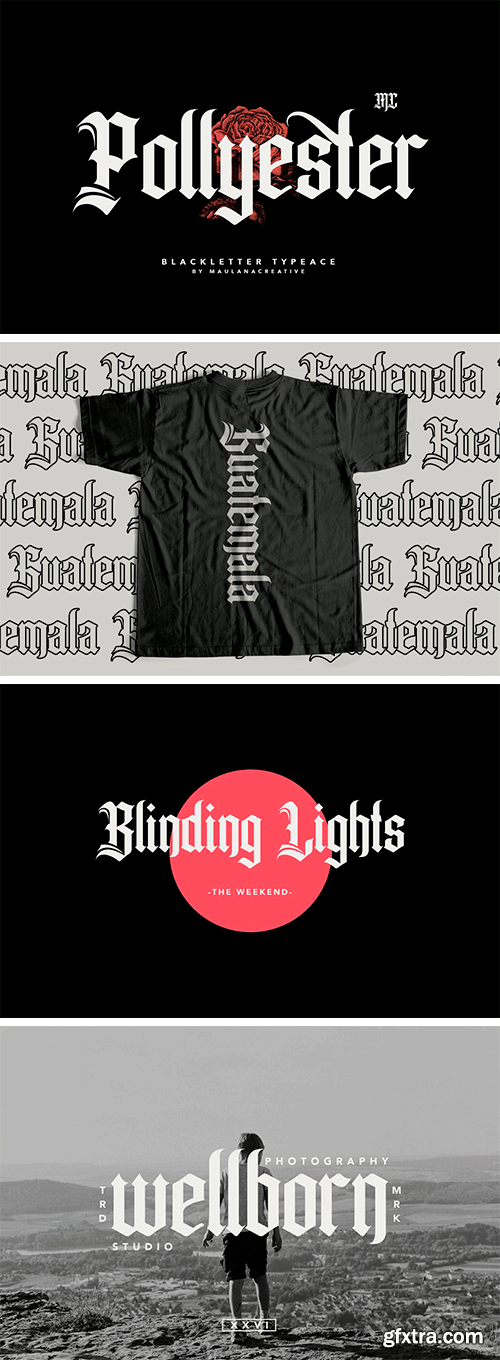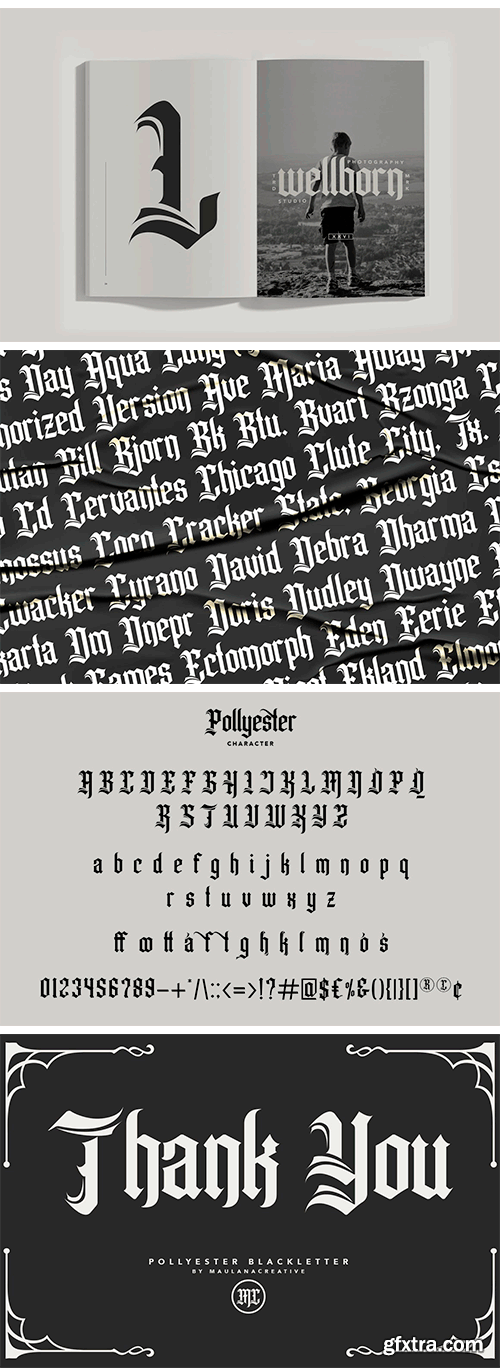
Pollyester Blackletter Font is a handmade Modern Victorian handlettering, which is combining modern and classic typography with some awesome alternates. Yes we back to early 1800s, bring classic touch on this decade.